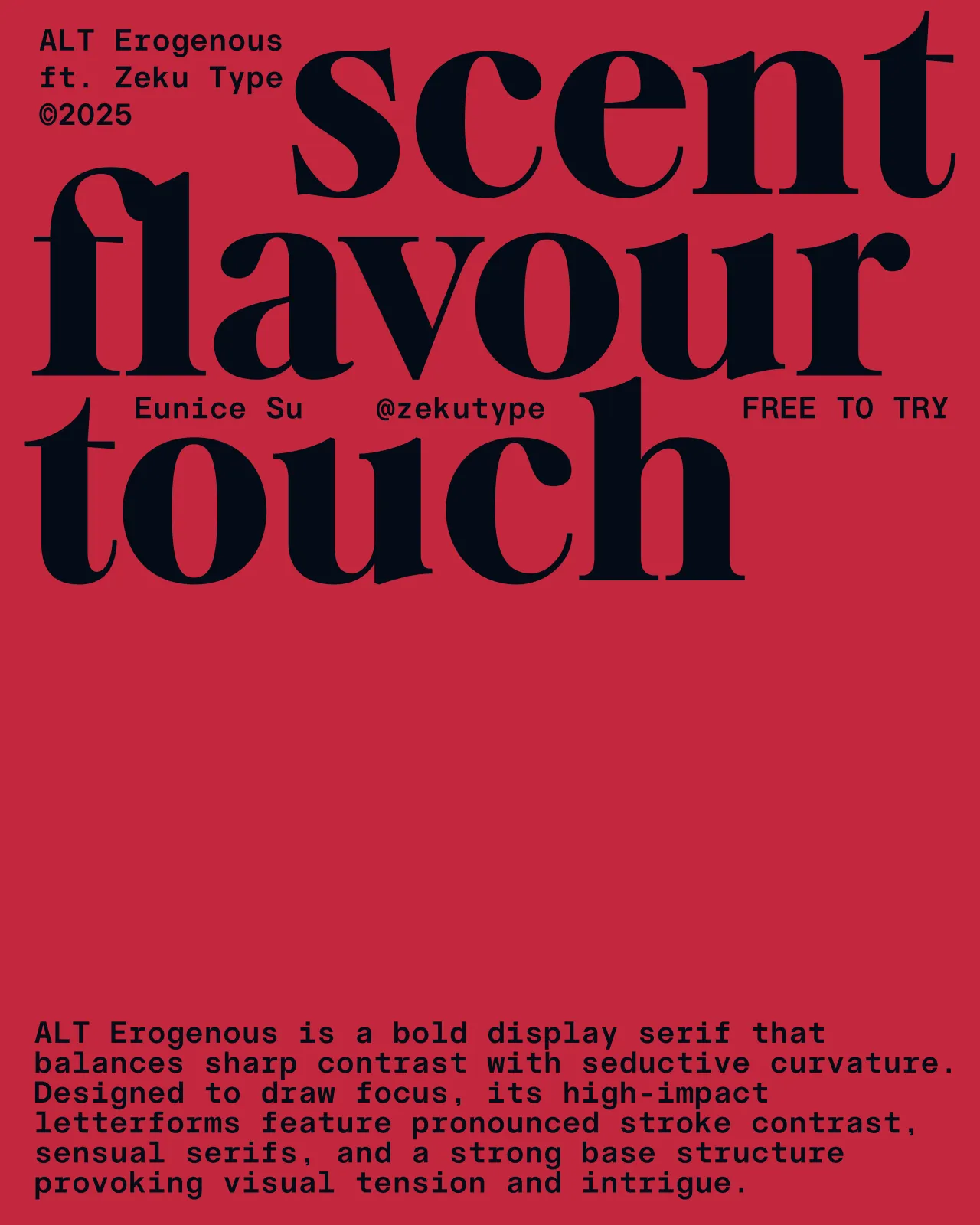
Design that is thoughtful, durable and rooted in genuine craft matters more than ever during periods of instability. And this month's typographic releases make a persuasive case for that position.
A compelling theme emerges across several of the strongest entries: the past as raw material. Neville Brody reaches back to revolutionary agitprop and constructivist brutalism. Fred Wiltshire riffs on an 1880s Herman Ihlenburg display face. ALT.tf revives lettering from a 1972 feminist text. Rubén Fontana synthesises centuries of calligraphic tradition with sculptural precision.
In each case, the historical reference functions as a starting point, not a destination. Perhaps it's no coincidence that, in uncertain times, designers find themselves reaching for anchors.
Elsewhere, systems thinking dominates. Mark Caneso's Please evolves across three subfamilies, each carrying a distinct typographic voice. CoType's Aeonik Soft extends an established, well-respected superfamily into an entirely new emotional direction.
Whether you're drawn to display faces with genuine cultural backbone, type families built for tomorrow's interfaces or serifs that balance formal ambition with everyday utility, there's plenty here to hold your attention.
1. Please by Mark Caneso
Please began with a single letterform. For Mark Caneso of ps.type.lab, it was the double-storey lowercase 'a'; specifically, what happens to it under extreme weight. As the heaviness increases, the letter's counters begin to close in on themselves. Rather than fight this structural inevitability, Caneso leaned into it: merging the counters and asking whether the result still read as an 'a', and whether that even mattered if it looked compelling. That single experiment became the organising logic of an entire family.
The result is a type family of three distinct subfamilies—Please, Please Display, and Please Poster—each with a slightly different default character set and, therefore, a slightly different typographic voice. Rather than burying alternate glyphs in stylistic sets, Caneso built those variations directly into separate font files, making it straightforward to find the right flavour without hunting through OpenType features. Proportions also shift across the weight range: lighter styles feel gently condensed, whilst heavier styles relax toward more expansive forms, even as the overall character stays compact throughout.
At the extreme end—the Poster subfamily, running from Heavy to Jumbo—things get, as Caneso puts it, "delightfully strange". Exaggerated counters and bold shapes produce forms that hover between familiar and alien, functional and purely expressive. Ultimately, Please rewards those willing to push it, offering one typographic personality at comfortable display weights and an entirely different one at the limits.
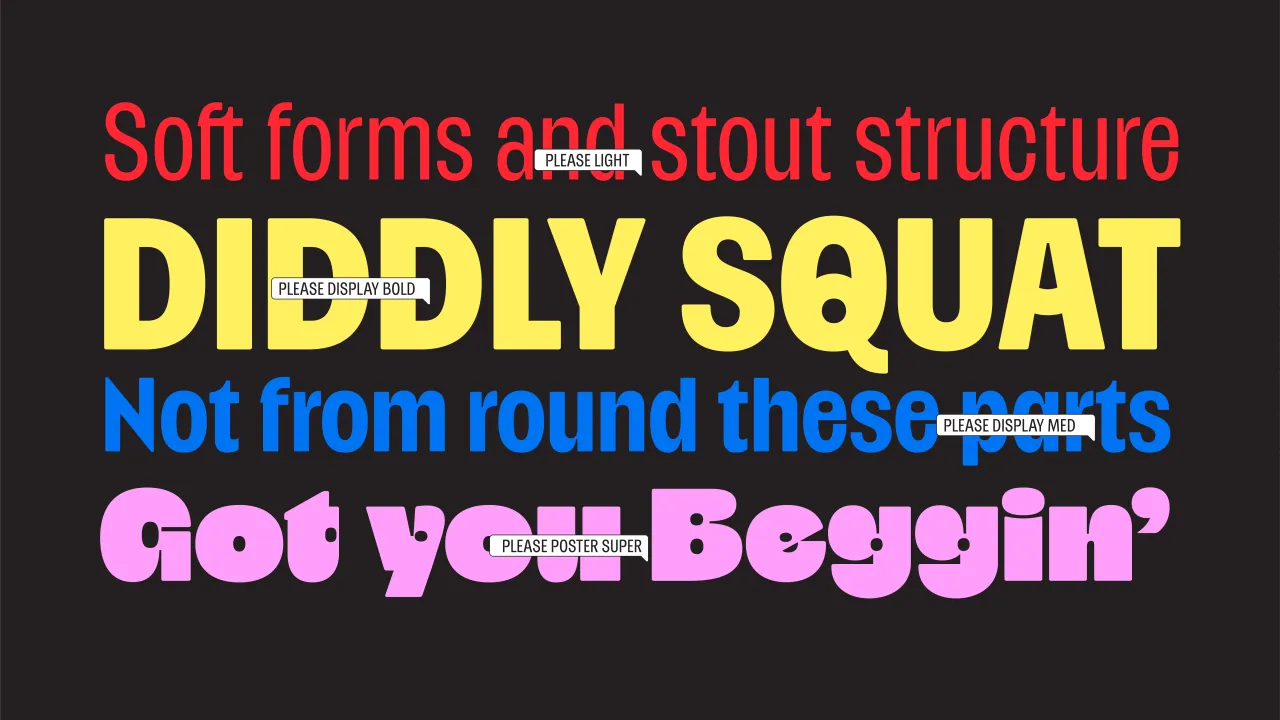
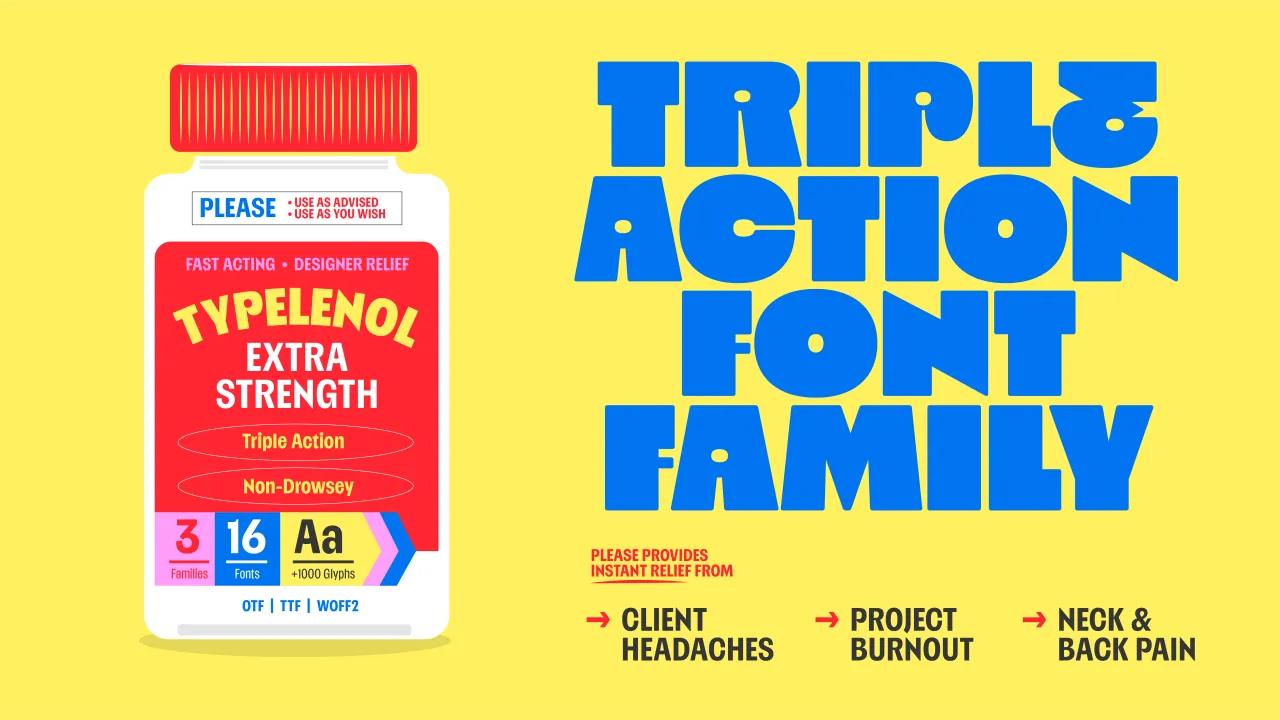
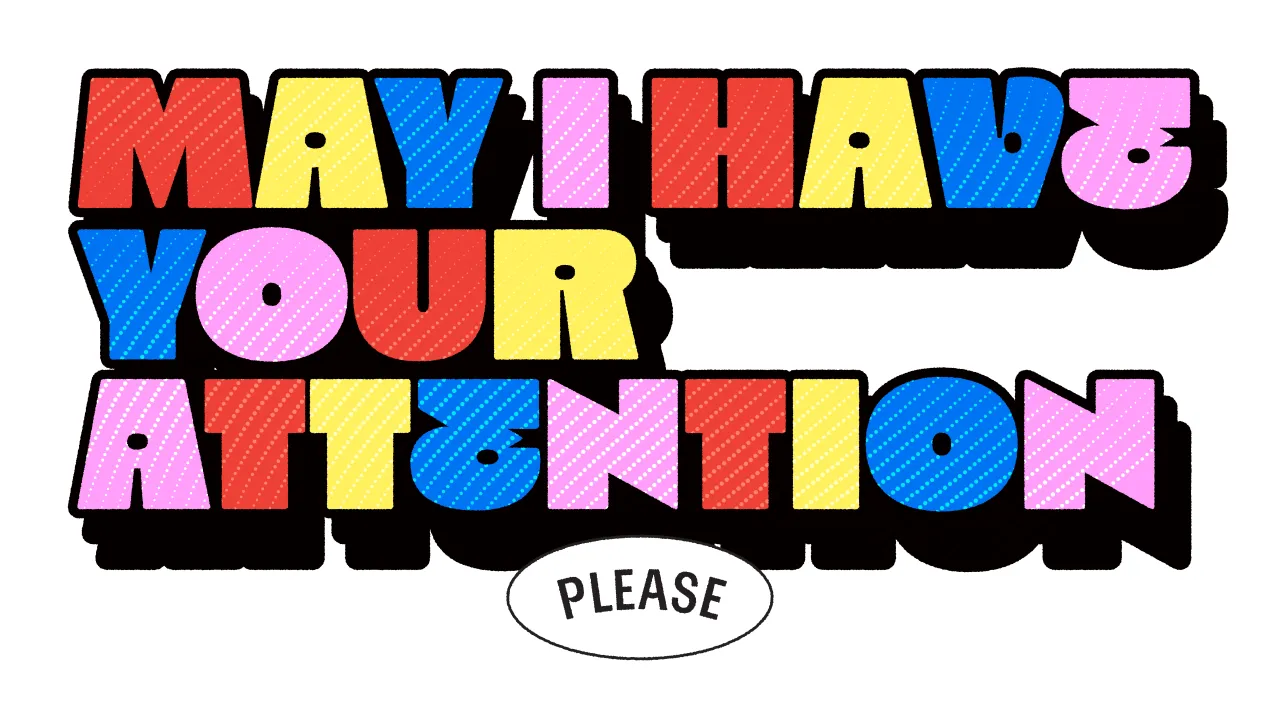
2. BF Popaganda by Neville Brody
Originally developed as part of Neville Brody's editorial design for Arena Homme+, BF Popaganda arrived at its form through an idea of concrete poetry: treating words and characters as heavy, impactful blocks that fill white space with weight, drama and emotional force. The typeface was deployed at poster and headline scale throughout that AH+ issue, its loosely geometric, constructed letterforms imbued with enough human touch to resist feeling purely mechanical or cold.
The visual DNA of propaganda posters, protest placards and agitational print culture runs through every letterform, but BF Popaganda is not a historical recreation. A large x-height and abbreviated ascenders and descenders concentrate visual mass in the mid-zone, amplifying the heavy caps and bringing genuine drama to headlines whilst maintaining legibility when deployed at text sizes. The tension between blunt impact and considered craft is what gives it its character.
Since its debut, BF Popaganda has been expanded into a broader range of weights, 16 styles in total, and is now available for purchase via Type Network for the first time. The expansion gives the typeface a range it previously lacked, making it adaptable across a wider span of applications without compromising its confrontational personality.
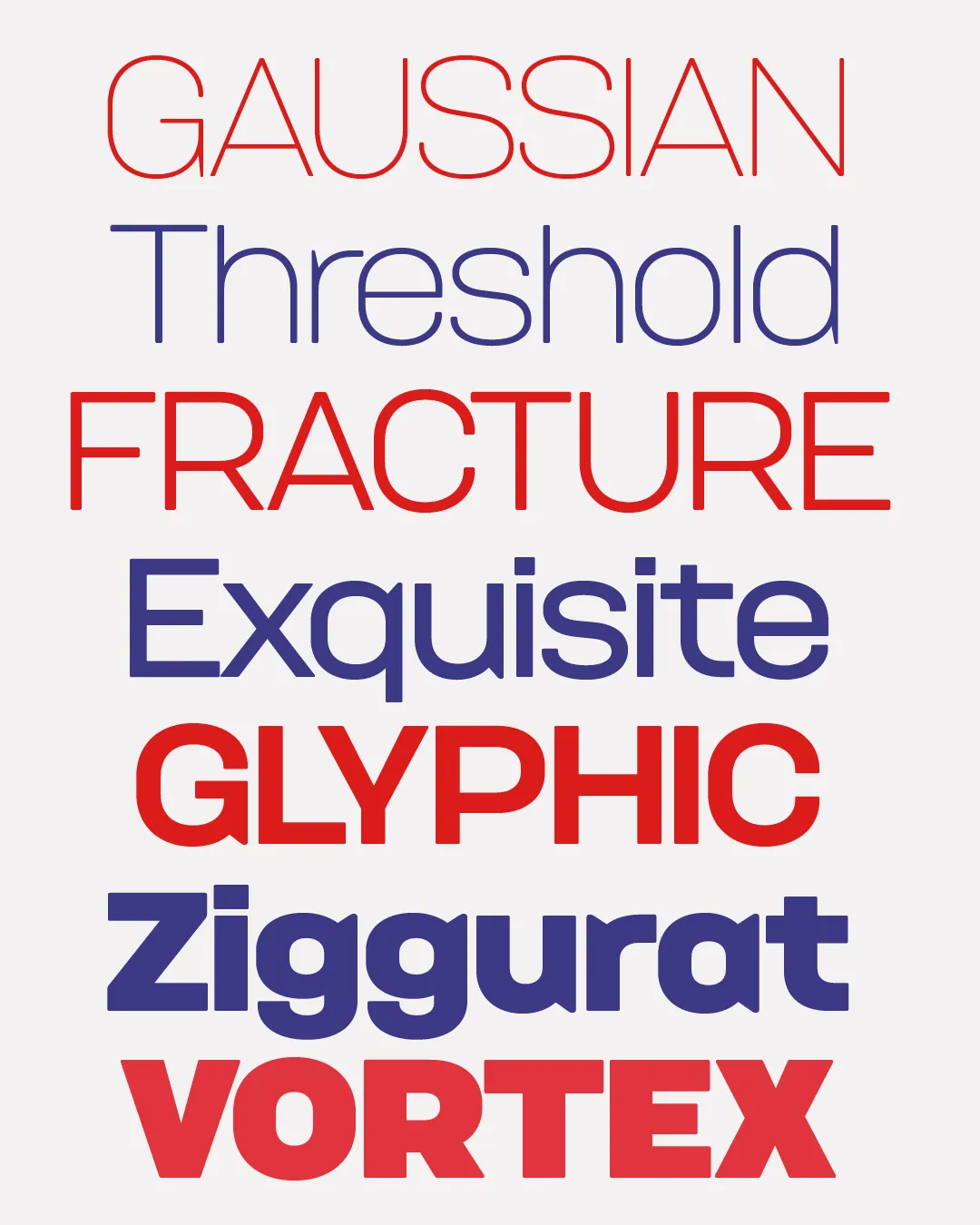
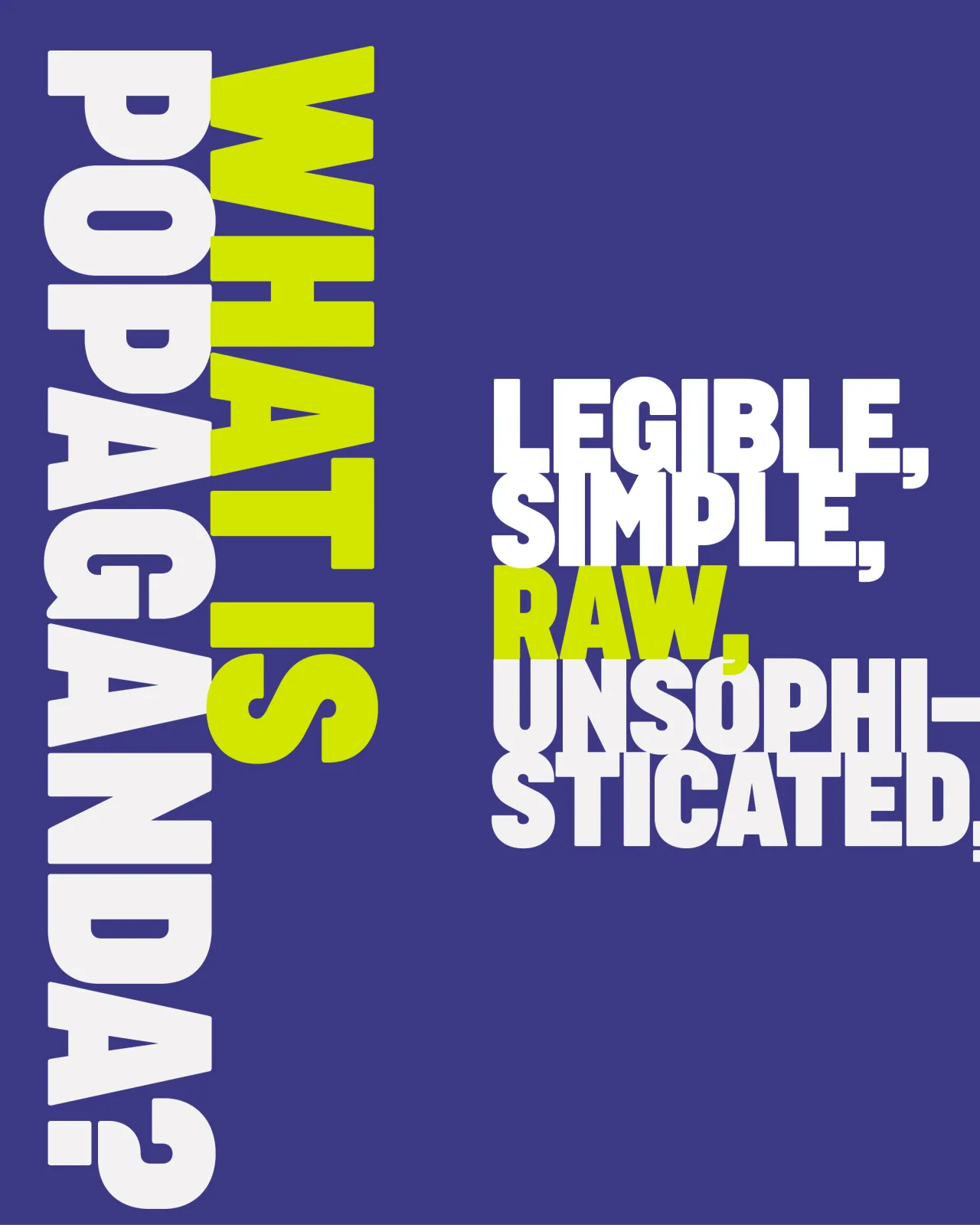
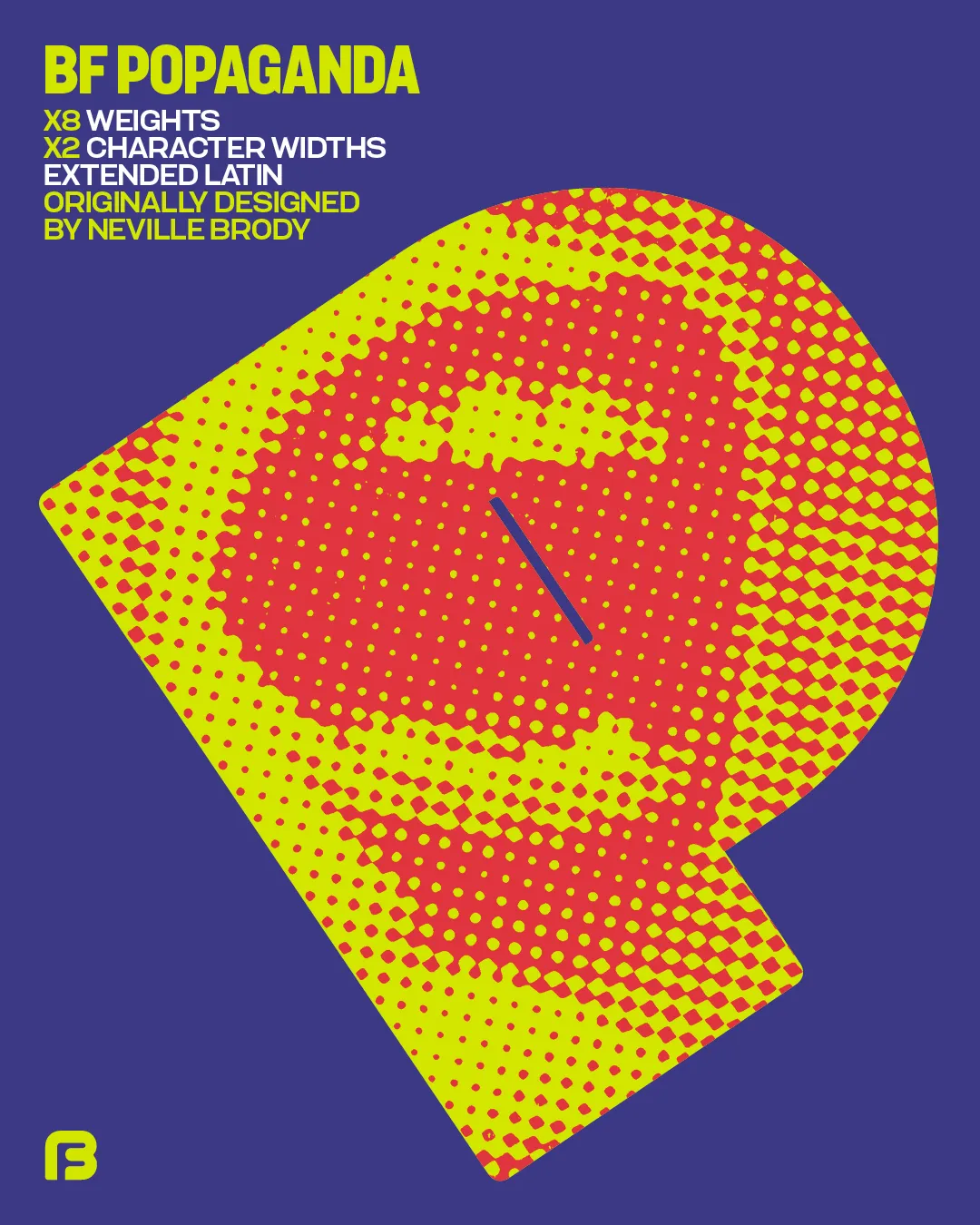
3. Aeonik Soft by Mark Bloom and Joe Leadbeater
CoType Foundry's Aeonik has built an impressive reputation, its geometric clarity finding favour among brands including Revolut, Eurosport and Alipay. Aeonik Soft extends the superfamily not by recapitulating its strengths but by interrogating them. Where the original is precise and clean, Aeonik Soft softens its terminals and corners, introducing warmth and approachability without disrupting the neo-grotesque logic underneath. It's an addition that makes the family more complete rather than simply larger.
This isn't a rounded typeface in the conventional sense. The mechanical backbone remains largely intact; what changes is its emotional register. Subtly curved corners replace the harder edges of the original, creating a version that feels more expressive and conversational, but never informal. The result is particularly well suited to editorial work, identity systems, packaging and children's content; contexts where Aeonik's modernity benefits from a gentler touch.
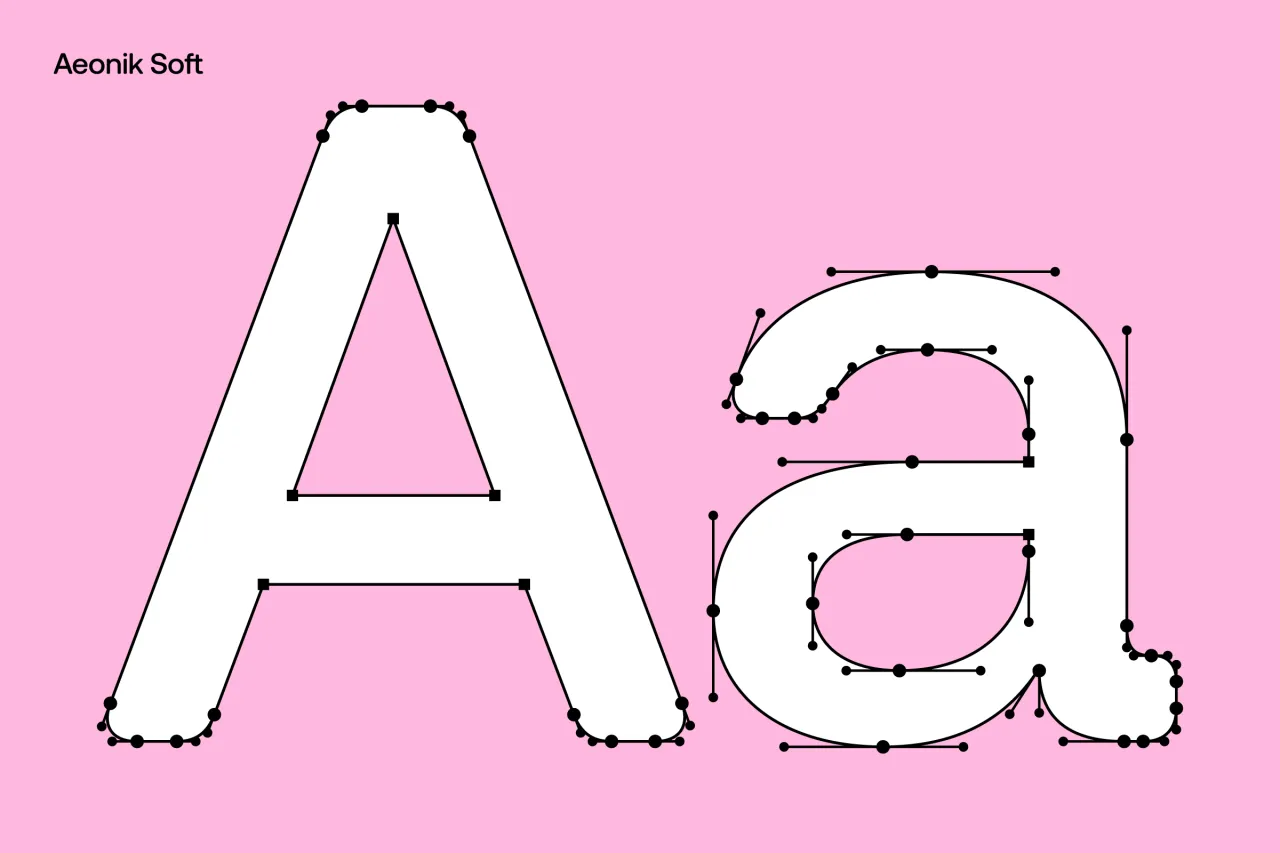
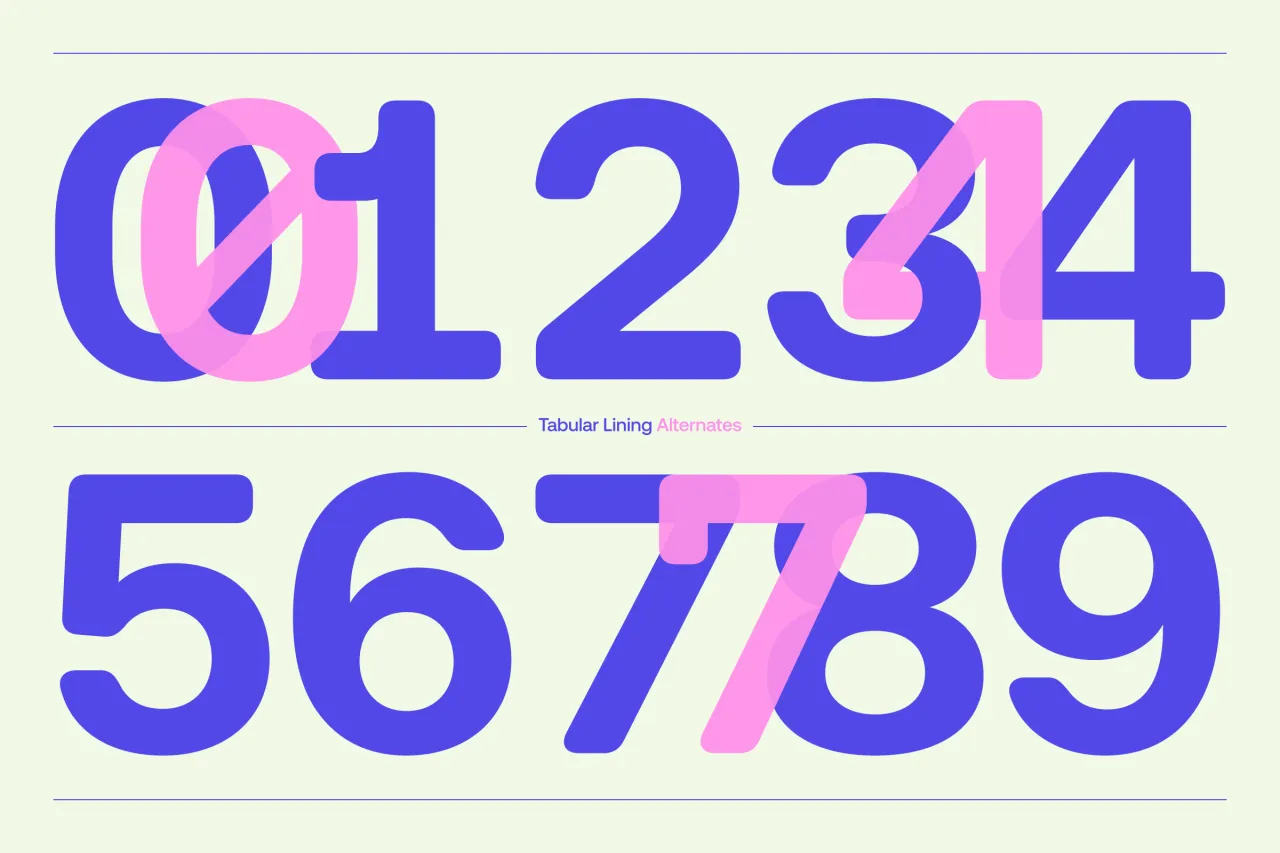
At display sizes, which is where Tatemod clearly performs best, the architectural reference reads not as a novelty but as a genuine design principle, giving the letterforms a structural authority that purely expressive display faces often lack. In a month dominated by variable systems and extensive families, there's something refreshing about a typeface with a single, clear purpose and the restraint to stick to it.